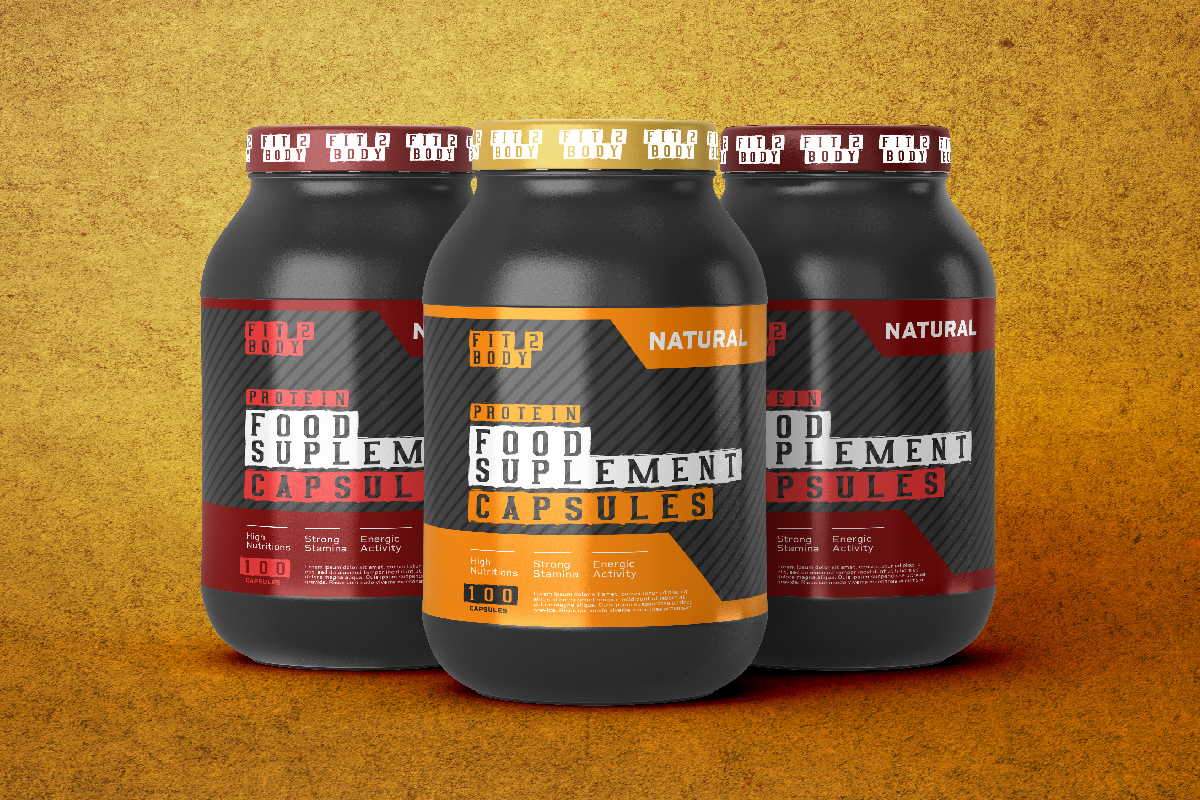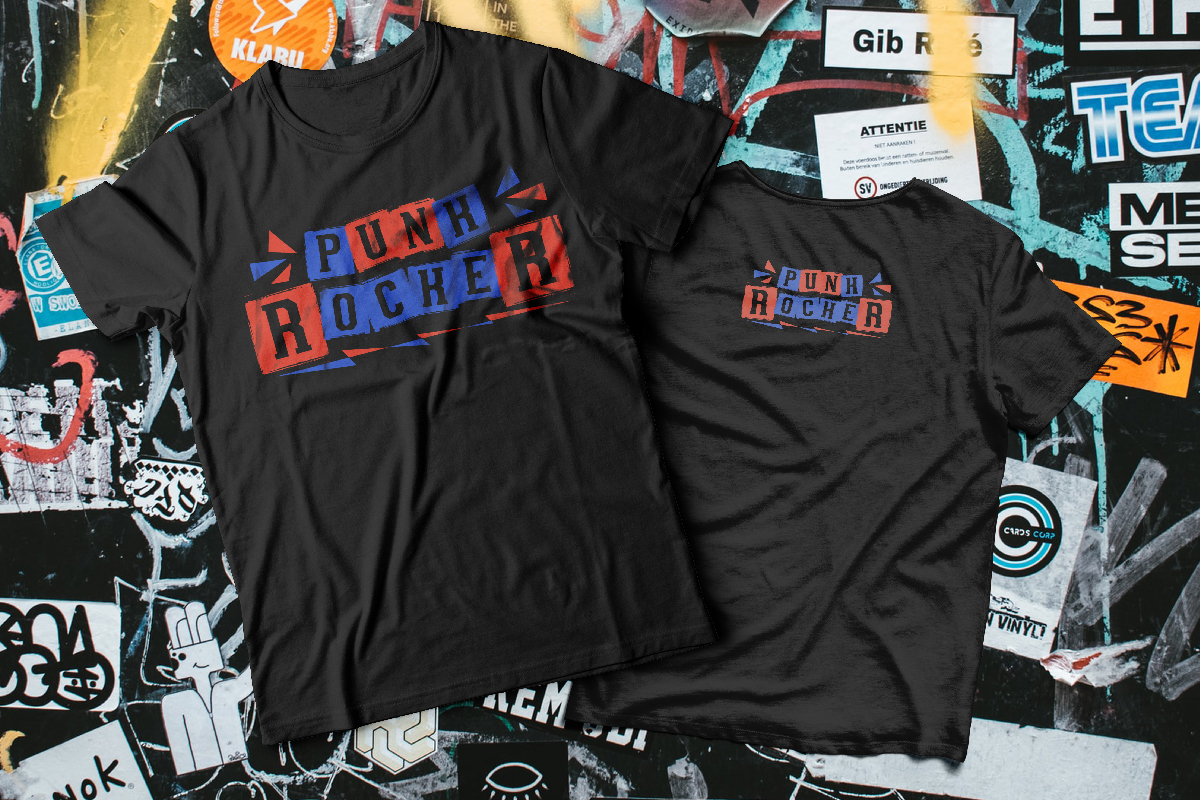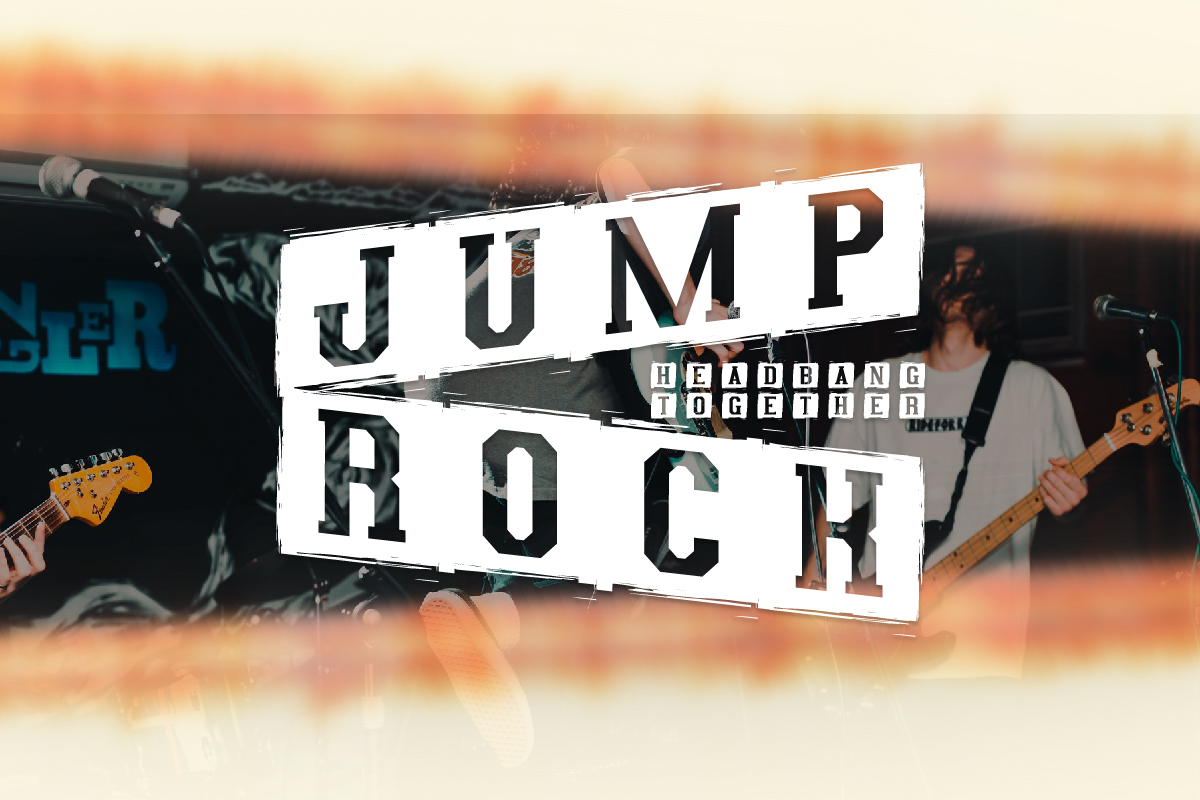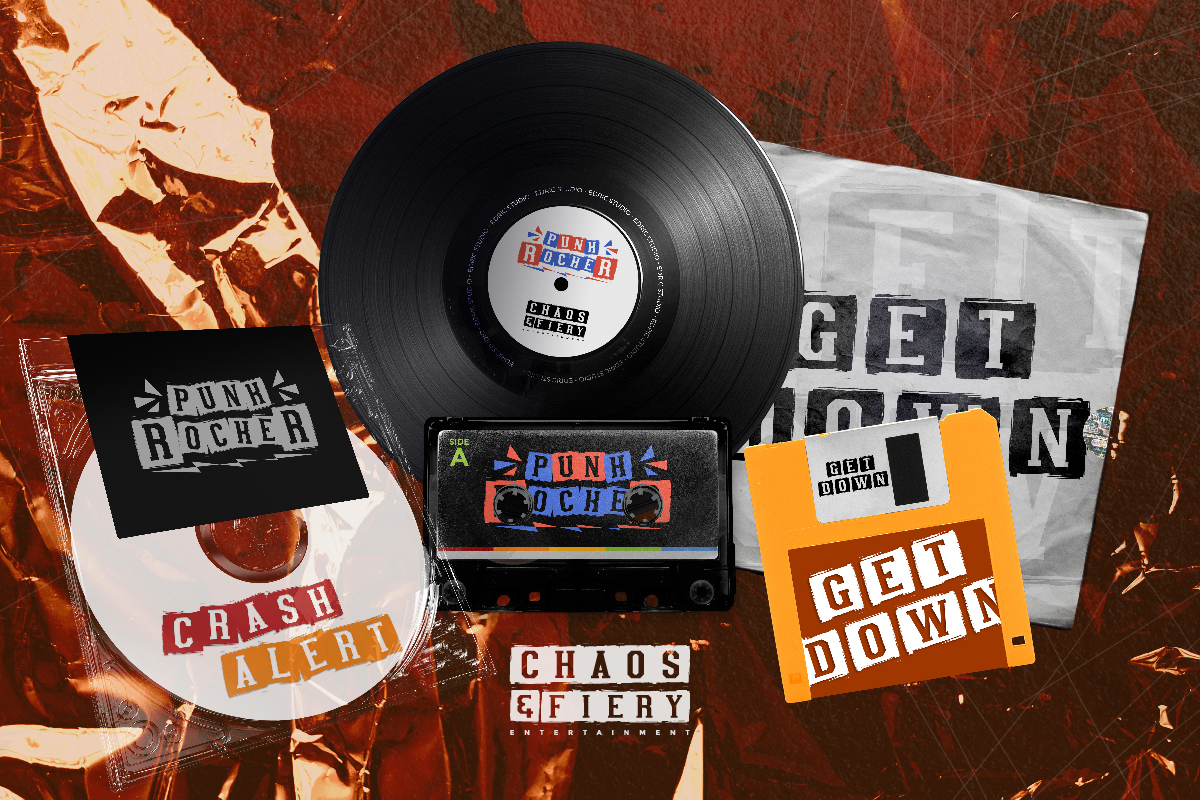
Crash Alert Font
Crash Alert Display Font
It’s a display sans serif with unique style font. This is a simple sporty look with brush horror effect. Will be perfect for advertising, branding, logo, signage, stationery etc. There are many industries that is suitable for this font : animation, entertainment, game, sport etc